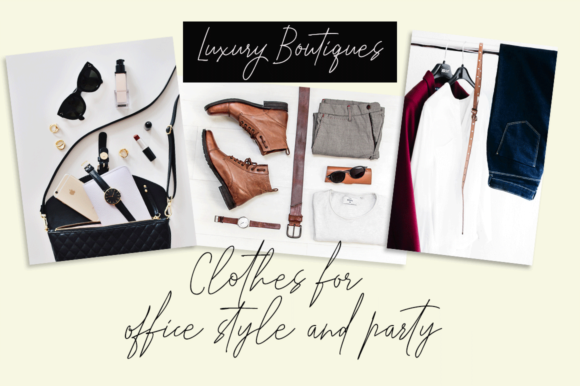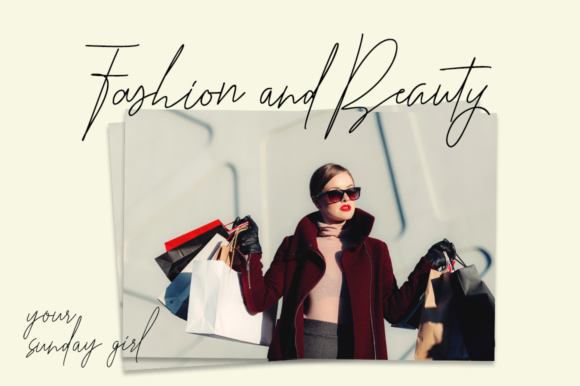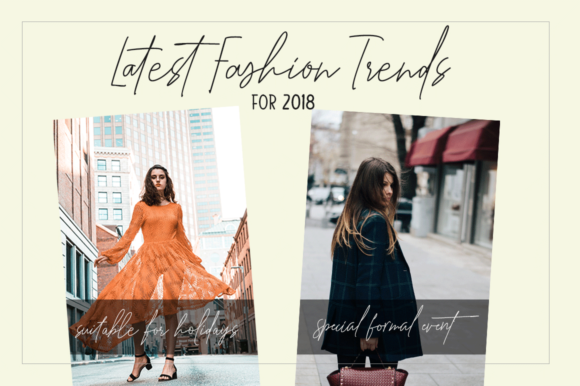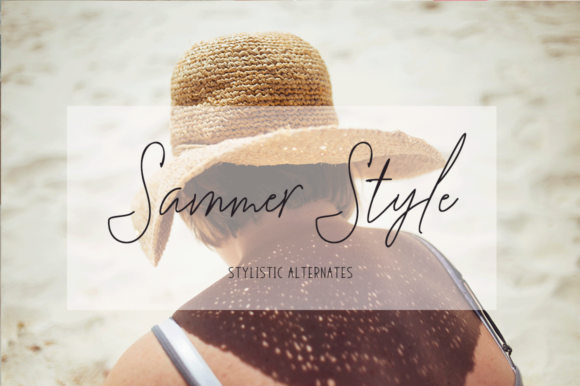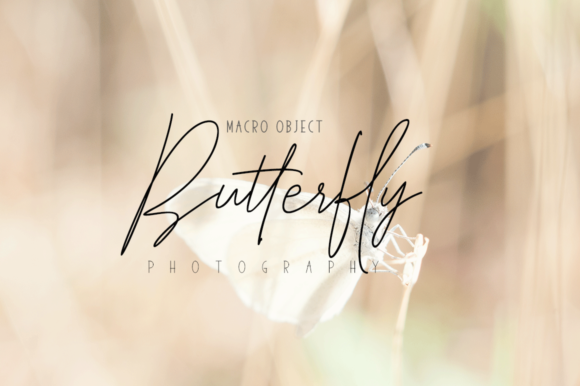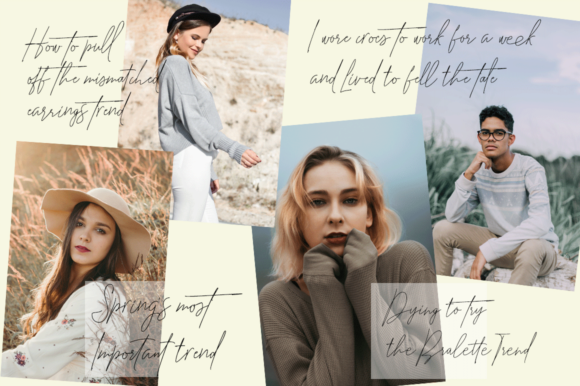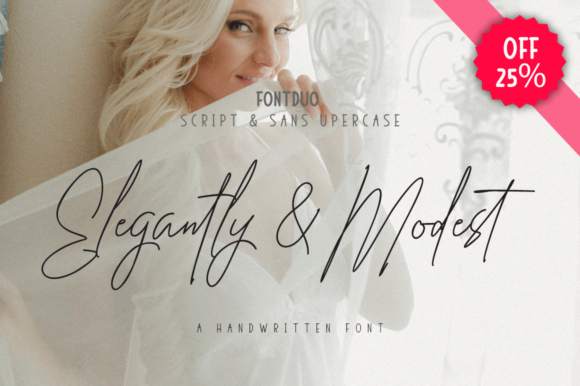
Elegantly & Modest Duo Font: Elevate Your Designs with a Touch of Sophistication
In the world of design, typography plays a crucial role in conveying the message and aesthetic of a project. For designers and crafters seeking a font that exudes elegance and modesty, the Elegantly & Modest Duo Font is an excellent choice. This beautiful font duo boasts a handwritten vibe that adds a natural touch to any design, making it perfect for a wide range of applications.
The Essence of Elegantly & Modest Duo Font
The Elegantly & Modest Duo Font is a thoughtfully crafted font pair that combines the best of both worlds: elegance and humility. The fonts feature a handwritten style that is both refined and understated, making them suitable for designs that require a touch of sophistication without being too ostentatious.
One of the standout features of this font duo is its versatility. Whether you’re working on a branding project, a wedding invitation, a blog post, or a social media graphic, the Elegantly & Modest Duo Font can adapt to any design style. Its unique charm lies in its ability to convey a sense of warmth and approachability, making it perfect for designs that aim to connect with the audience on a personal level.
Key Features of Elegantly & Modest Duo Font
- Handwritten Vibe: The fonts have a natural, handwritten feel that adds a personal touch to your designs.
- Elegant and Modest: The font duo strikes the perfect balance between elegance and humility, making it suitable for a wide range of design applications.
- Versatile: The fonts can be used for various design projects, including branding, invitations, blog posts, social media graphics, and more.
- Easy to Read: The fonts are clear and legible, ensuring that your message is conveyed effectively.
Design Applications for Elegantly & Modest Duo Font
The Elegantly & Modest Duo Font can be used in a variety of design applications, including:
- Branding: Use the font duo to create a cohesive brand identity that exudes elegance and sophistication.
- Wedding Invitations: Add a touch of romance and elegance to your wedding invitations with this beautiful font duo.
- Blog Posts: Use the fonts to create engaging and readable blog posts that resonate with your audience.
- Social Media Graphics: Elevate your social media graphics with the Elegantly & Modest Duo Font, making your content stand out in a crowded feed.
Tips for Using Elegantly & Modest Duo Font
To get the most out of the Elegantly & Modest Duo Font, consider the following tips:
- Pair with Other Fonts: Experiment with pairing the Elegantly & Modest Duo Font with other fonts to create a unique and visually appealing design.
- Adjust Font Sizes: Play with different font sizes to create visual hierarchy and emphasize important elements in your design.
- Use Colors Wisely: Choose colors that complement the font duo and enhance the overall aesthetic of your design.
The Elegantly & Modest Duo Font is a beautiful and versatile font pair that can elevate your designs with its elegant and modest charm. With its handwritten vibe, versatility, and ease of use, this font duo is perfect for designers and crafters seeking to add a touch of sophistication to their projects. Whether you’re working on a branding project, a wedding invitation, or a social media graphic, the Elegantly & Modest Duo Font is an excellent choice.